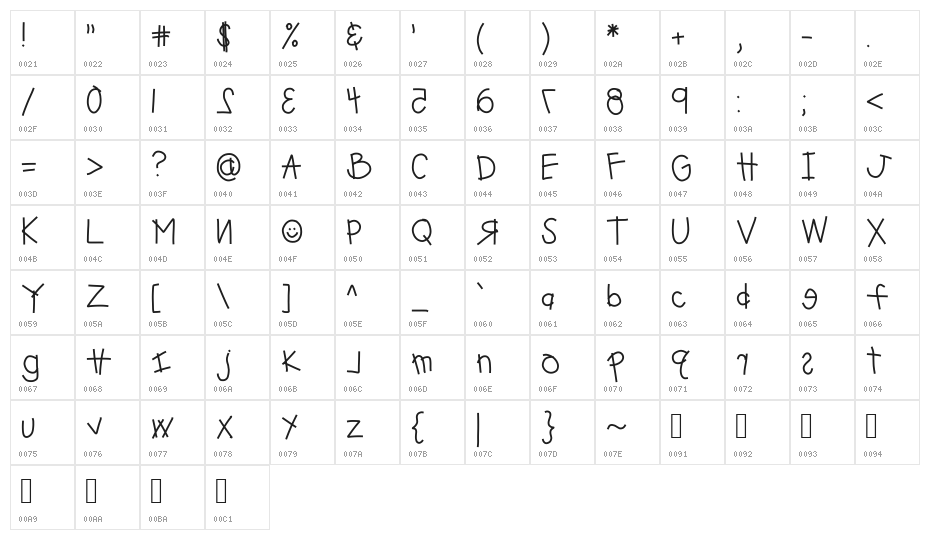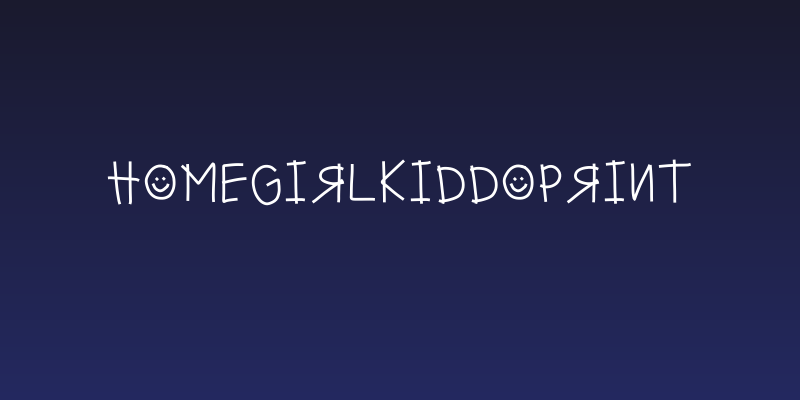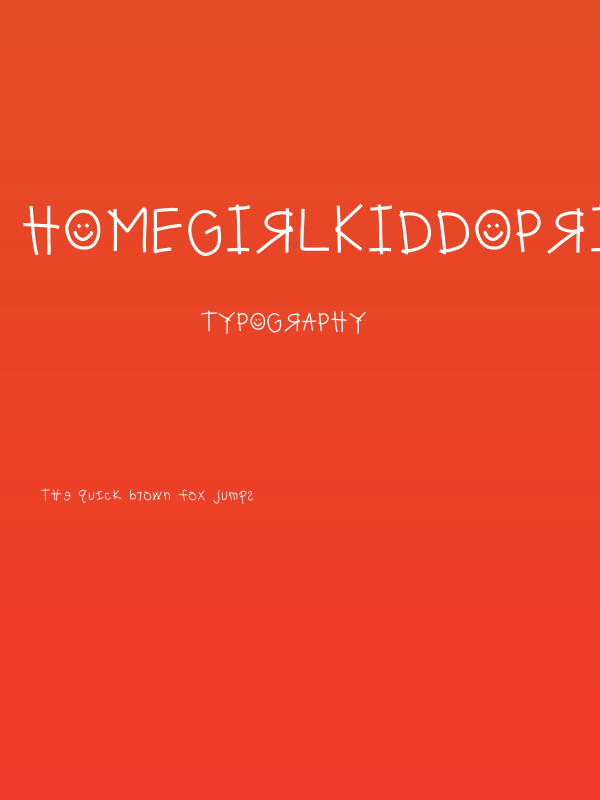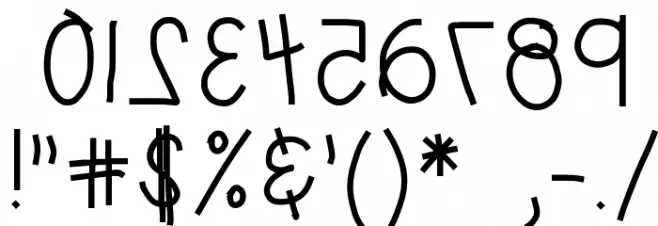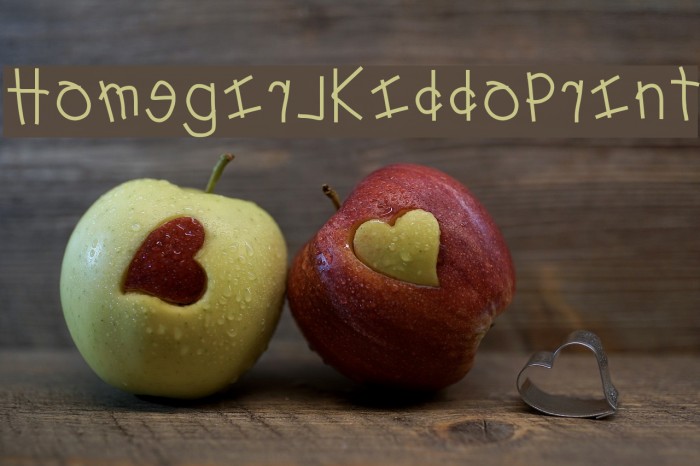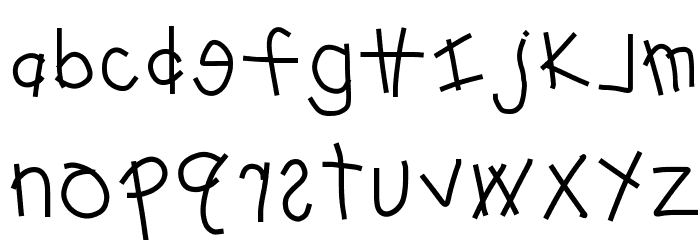
HomegirlKiddoPrint Font
This playful and whimsical font features a hand-drawn, childlike style with irregular strokes and a casual appearance. The characters are slightly tilted and uneven, adding to its informal and friendly vibe. Uppercase and lowercase letters maintain a consistent style, with some letters incorporating unique elements, such as a smiley face within the letter 'O'. The numbers are bold and quirky, matching the overall aesthetic. Special characters are creatively designed, enhancing the font's playful nature. This font is perfect for projects that require a fun and approachable look.
| Proposed Projects | Ideal for children's books, playful branding, greeting cards, and educational materials. |
| Author | Fonts by Måns Grebäck |